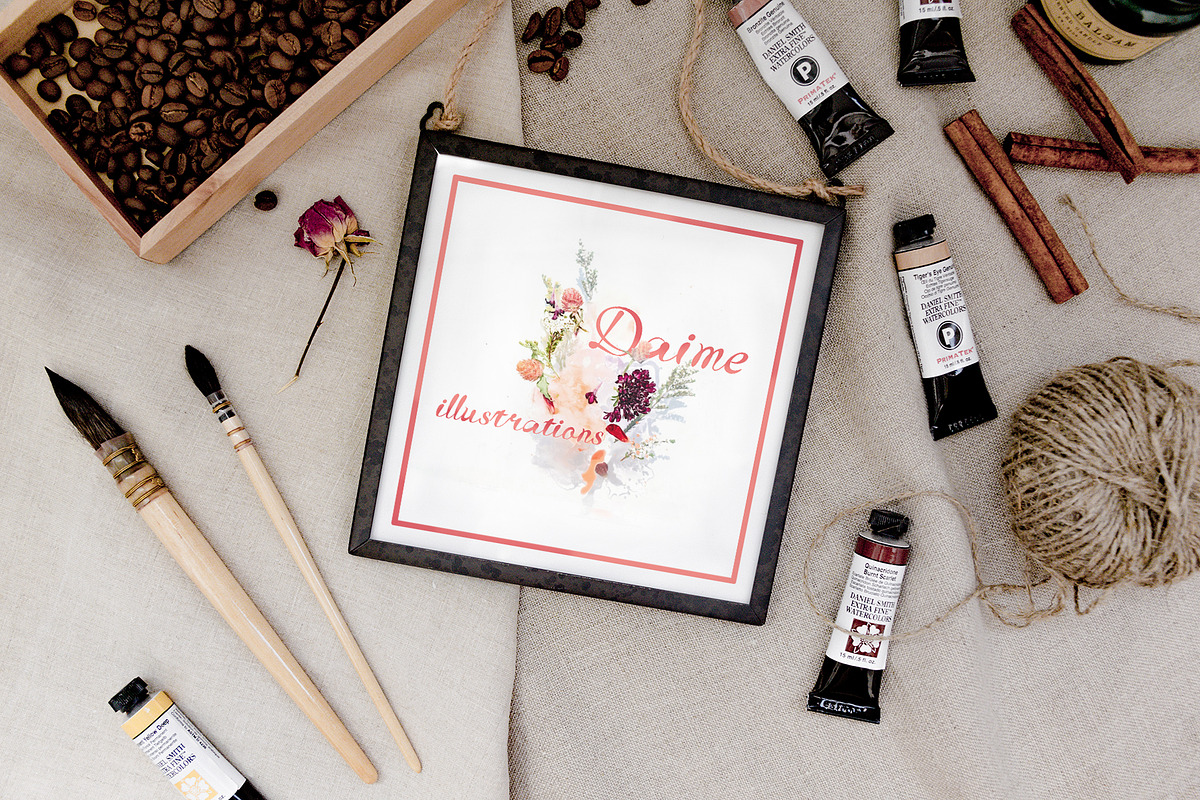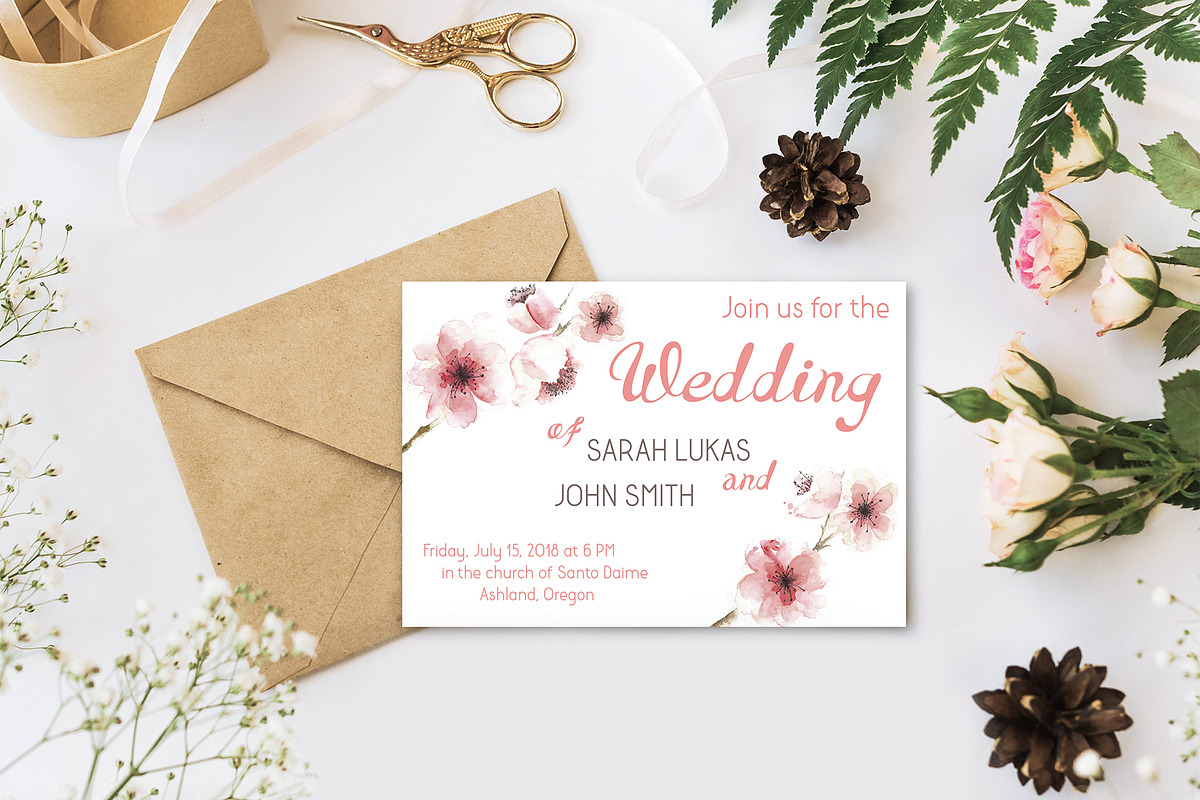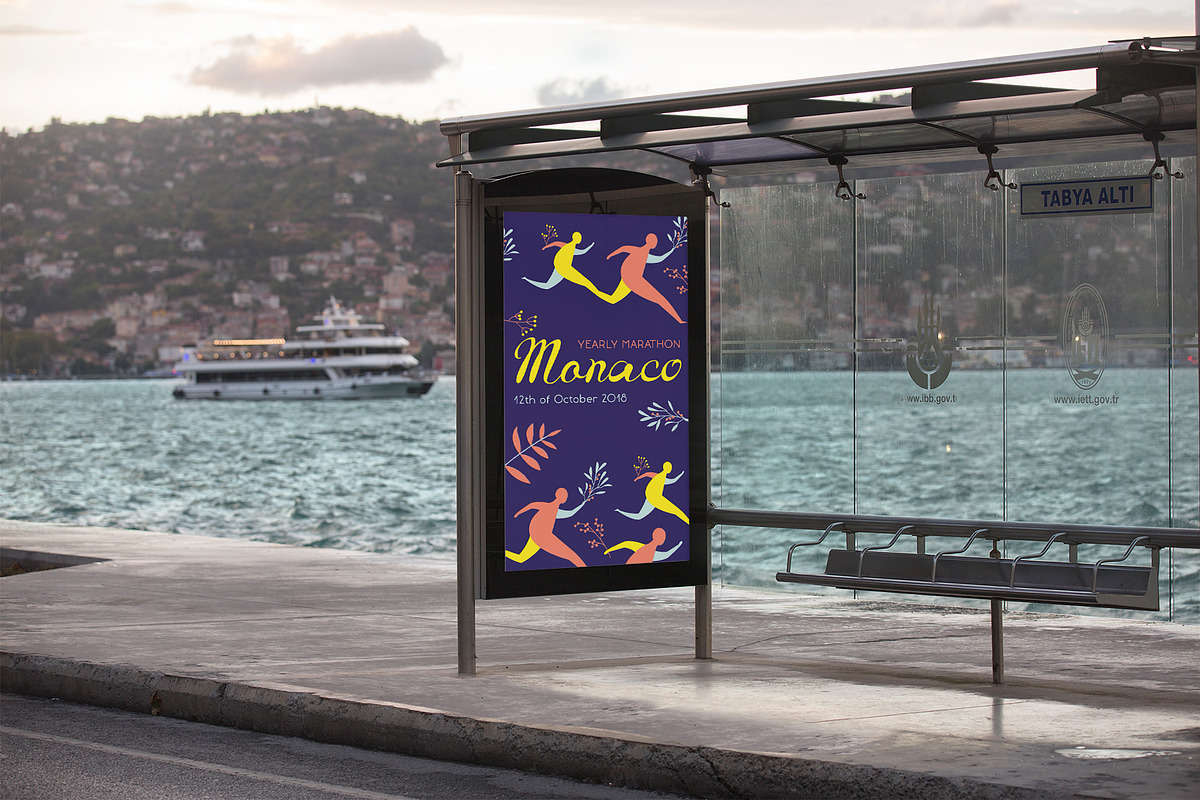
Solomonk
Solomonk is a hand-drawn script with extended latin.
- All European languages are supported. (¥€$, †ħåț įš ŵøñ∂èŕfüł)
- Basic alphabet has alternates. (a→α)
- Solomonk can be connected and disconnected (just choose the proper symbol from glyphs panel).